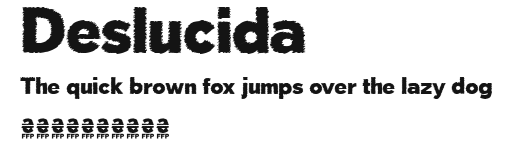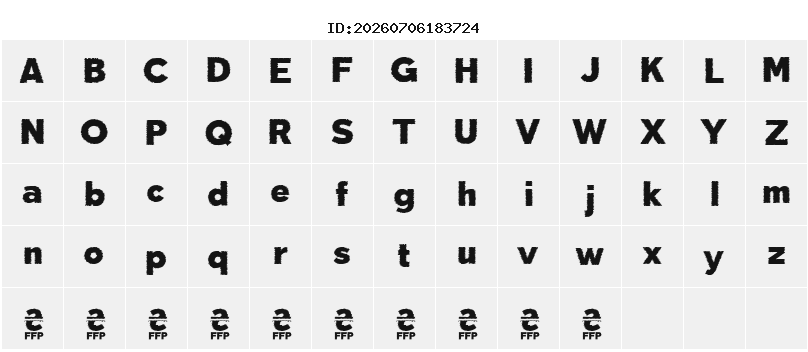
• Font Name: Deslucida
• Designer: deFharo
• Manufacturer: Fernando Haro
• Description: Deslucida FFP is a Font Sans-serif very readable with advanced OpenType and decorative swashes to the composition of complex texts -Commercial version-
Deslucida.ttf is a modern, elegant sans-serif font designed for ultimate readability and visual harmony. Perfect for branding, headlines, web design, and print materials.